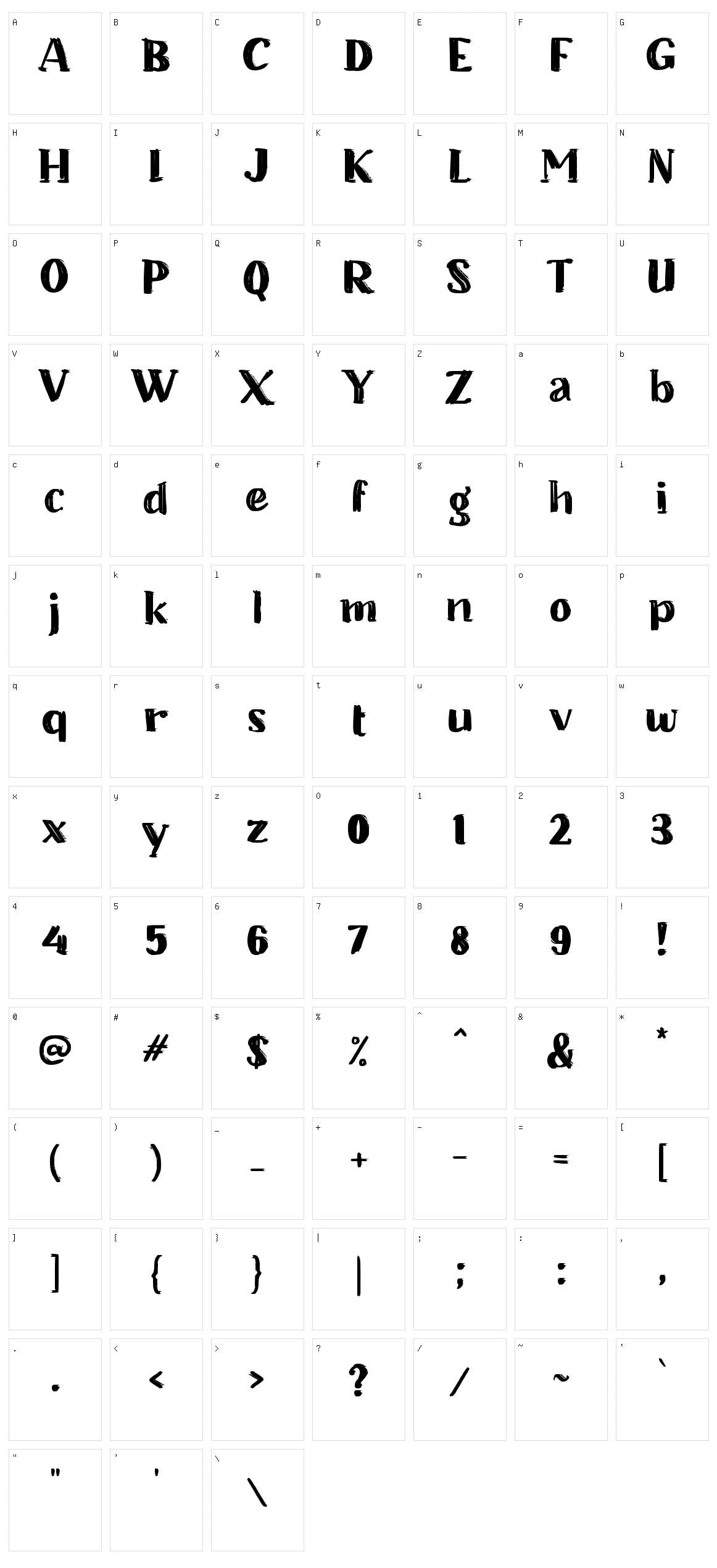
The free font b Brisket is carefully designed by wep, showcasing a thoughtful balance of creativity and usability and falls under the Trash font style. When you download the ZIP file, it contains only 39.5 KB of font files, making it lightweight and quick to download. Please review the license details below to understand permitted usage and distribution rights. If license information is not available, we recommend using this font for personal projects only or contacting the author directly for commercial usage permissions.